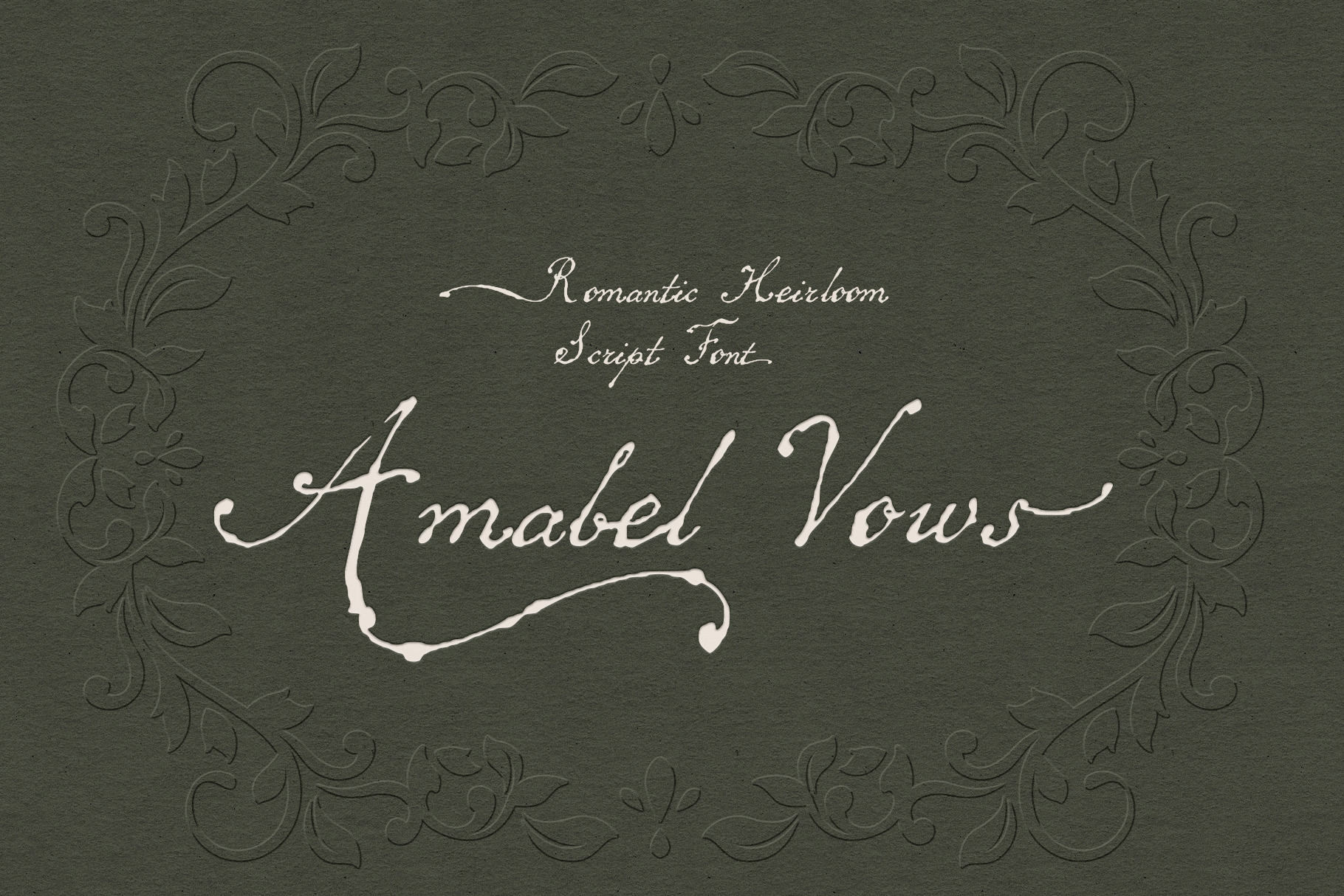
Amabel Vows: Romantic Script Font
Amabel Vows is a romantic heirloom script font with elegant handwritten curves, vintage ink texture, and graceful old-letter movement. It was made for designs that need the feeling of a promise written by hand: tender, formal, intimate, and just a little imperfect.
The font has a delicate antique rhythm, with expressive capitals, soft connecting strokes, thin ink details, and romantic swashes that make names, vows, monograms, and invitation lines feel personal and beautifully kept. It works especially well for wedding stationery, save-the-date cards, envelopes, vows, menus, place cards, bridal branding, boutique logos, packaging, labels, romantic editorials, and love-letter inspired designs.
Amabel Vows is elegant without feeling stiff, ornate without becoming too heavy, and romantic without turning too sweet. It brings a soft vintage ceremony to modern layouts, whether you are designing a full invitation suite, a delicate logo, a handwritten quote, or a small keepsake detail.